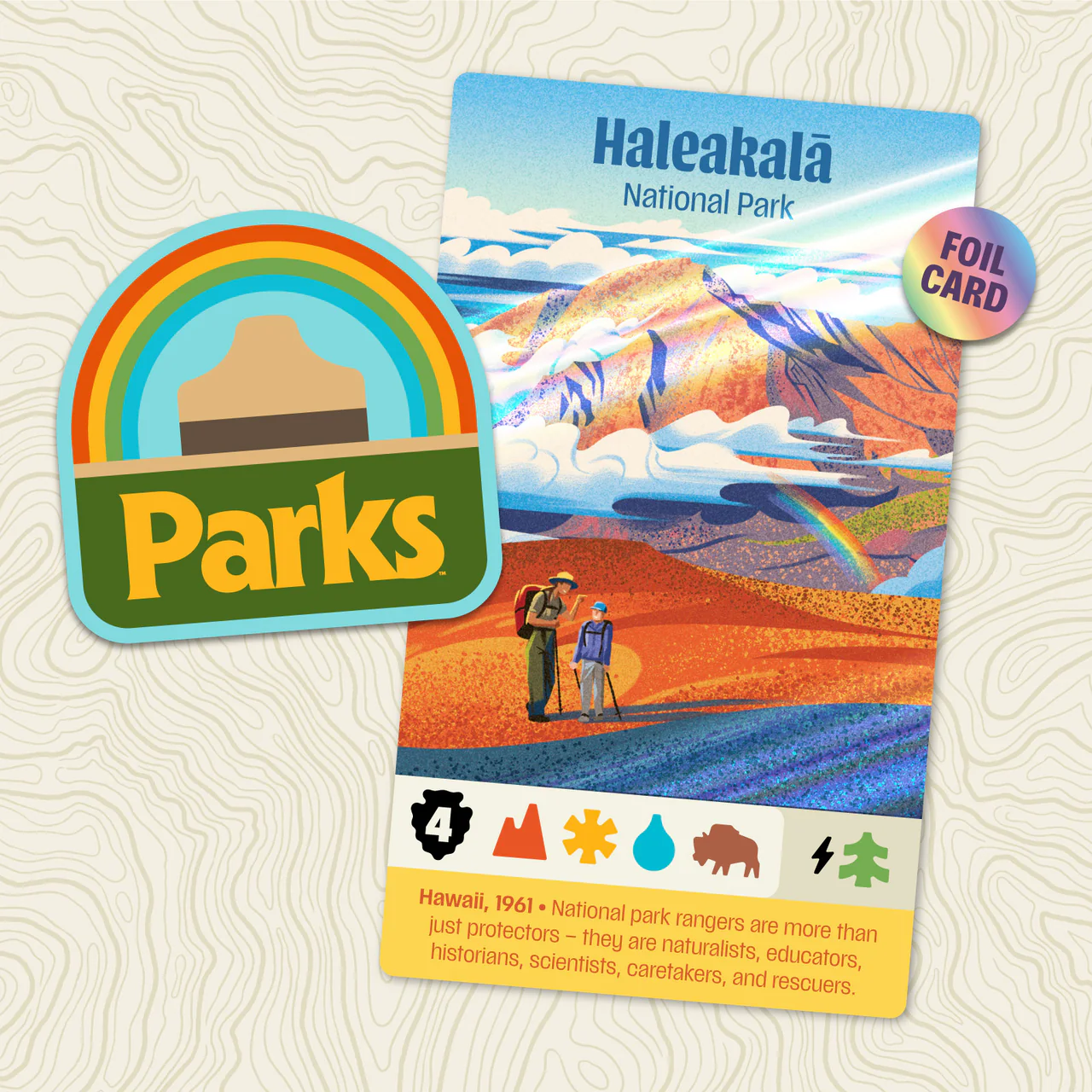
OpenType features
Connected rounds
Stylized caps
Cap I, straight l
Diagonal v,w,y
Calligraphic styles
Tabular figures
An anfractuous venture of Very Cool Studios, Bruphy is the result of taking humankind’s oldest and most unfeigned question and asking it again: “can a Robert Simmons Sapphire Short Handle Flat Brush write 20th century latin letters worthy of MakeOTF?” While philosophers and literary critics have long suffered over the physical limitations of this question, only one (1) person has braved the path of experimentation. Like Marie Curie, who imposed her experiments upon herself, this death-or-glory typographer (me) walked the untrod path (make font) and crafted the antidote to generations of hankering. In Bruphy, today this riddle is solved, this question answered.